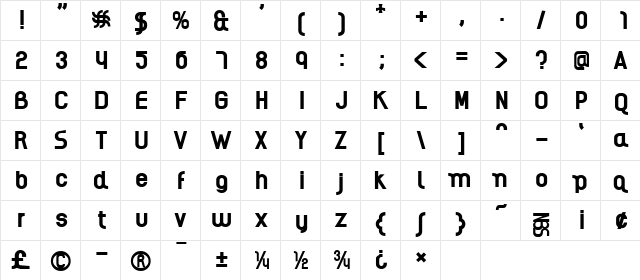
AI kelso B
Design Context for AI kelso Typeface
AI kelso offers clean, dependable letterforms without strong stylistic allegiance, making it a practical choice for designers who need flexibility.